1. Aparo – DS Type – $40
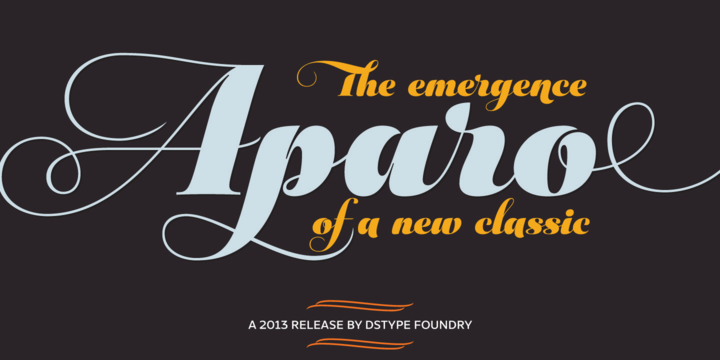
Typography or Calligraphy. Unconnected or Connected. For us, at DSType Foundry, that was the main question. With Aparo, we tried to bring the best of the two worlds into a single, yet complex, typeface. Aparo appears to be a very simple bold italic roman typeface, but it has plenty of calligraphic flair, including swashes that make your words stand out, collision detectors so that you don’t get weird combinations, alternate characters activated by default for improved calligraphic effect and a very extended character set in a total of 897 glyphs. Download our detailed type specimen for complete information on Aparo.
Designers: Dino dos Santos
2. Aranjuez Pro – Sudtipos – $59
Aranjuez is the latest Koziupa and Paul adventure. This time, they max out on calligraphic art deco, then add a healthy dose of the thick-and-thin mantra that’s been so trendy for quite a few years now. The result is neo-psychedelia in an upright cross-breed of pseudo-wood deco and ornamental calligraphy, complete with alternates, swashes, endings, playful contrast treatments, and even background possibilities. This font is quite expressive, and its elegance is meant to be shown prominently. So use it for packaging, book covers, or wherever the message needs to be delivered clearly and with a precisely controlled touch of class.
Designers: Angel Koziupa, Alejandro Paul
3. Balmoral – Letraset – $39.96
An elegant, free-flowing copperplate script style designed by renowned British designer Martin Wait. Generous initial capitals compliment the more restrained lower case letters that join for balanced letter spacing in word settings. Excellent for certificates, citations, diplomas and greeting card applications.
Designers: Martin Wait
4. Blanchard – CanadaType – from $24.95
Blanchard is a revival and elaborate extension of Muriel, a 1950 metal face made by Joan Trochut-Blanchard for the Fonderie Typographique Française, that was published simultaneously by the Spanish Gans foundry under the name Juventud.
Blanchard is a script that embodies the post-war narrow decorative aesthetic that would become the instantly recognizable feature of that era’s design. Its high ascenders corners make it the tuxedo of fonts, with slight and casual angles gradually revealing a trustworthy confidante, and sharp corners signaling a most expressive ally. Font. James Font.
This digital version updates the original metal shapes to work within today’s design tools and designer needs. Some of the questionable metal shapes were optimized, plenty of alternates were added, and as many as five ending forms were built for most lowercase letters. Overall, this is one of the most useful packages for book cover, magazine and packaging design.
Blanchard is available in all popular formats. Blanchard Pro combines all five fonts into a single one that makes use of OpenType’s cross-platform compatibility and programs that support OT’s fine typography features, like recent versions of Adobe InDesign and QuarkXpress.
Designers: Joan Trochut-Blanchard, Rebecca Alaccari, Patrick Griffin
5. Chateau – Wilton Foundry – $29
On the one hand Chateau is almost palatial but at the same time it has a quite earthy personality as represented by the stenciled strokes.
However, this stencil effect serves to refine the strokes by creating the illusion of a completed thin stroke. Chateau is more of a hybrid roundhand script with its contrasting ornate capitals.
Originally a fortified residence in France was called a Chateau. Today there are many estates with true Chateaux on them in Bordeaux, but it is customary for any wine-producing estate, no matter how humble, to prefix its name with “Chateau”. This is true whether the building itself is a magnificent palace or a shack. The distinctive chateau architecture was in inspiration for the name of this script.
Chateau is ideal for packaging design, invitations, announcements, headlines, brochures, menus, weddings, scrapbooking, etc. Chateau is available in Opentype, Postscript and Truetype for Macs and PCs.
Designers: Robbie de Villiers
6. Comalle – Latinotype – $49
Comalle is an organic typeface that rescues some elements of handwritten script, but its stroke does not necessarily answer to a literal calligraphy structure.
So Comalle could produce a powerful impact on the page, it was designed with thicker strokes than its counter forms. The objective is that the black of the letter fills the page and causes a fastest visual impact than typographies that balance blacks and whites.
One of the most important tasks of the Comalle design was to think of how to handle the unequal percentages of blacks and whites in the typeface. The peculiar thing, is that the precision work of the letter does not make the blacks, but the whites; this is the reason why in one first instance it was very valid to start off designing in a very gross way, nevertheless, the majority energies are put in the details of the design of counter space.
Designers: Octavio Pardo